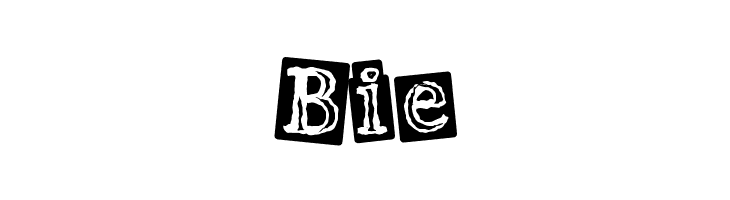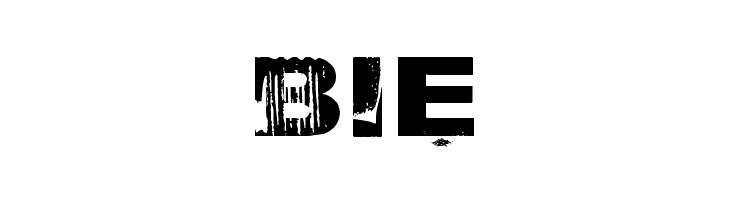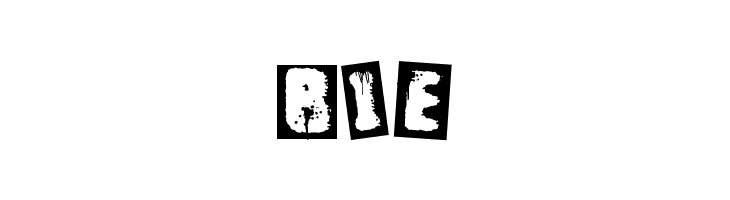
A bold, distressed font with a punk rock, DIY aesthetic.
A bold, distressed font with a grunge texture and rugged appearance.
A functional pictogram font for safety and instructional signage.
A bold, edgy font with a punk rock, cut-and-paste aesthetic.
A gritty, distressed font with a punk rock aesthetic, featuring bold, jagged characters.
A rugged, stitched-style font with a handcrafted, edgy appearance.
A playful, hand-drawn font with bold, outlined characters.
A playful, hand-drawn font with a bold, cartoonish style.